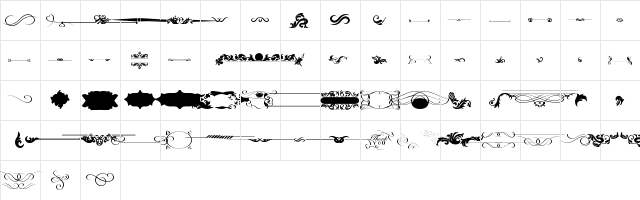
old retro labels tfb Regular
Design Context for old retro labels tfb Typeface
old retro labels tfb has the warm character of retro typography — evoking diners, record sleeves, and the golden age of print advertising.
Font Pairing: Combine old retro labels tfb with a simple slab or neutral sans — period-accurate companions reinforce the vintage feel without competing for attention.
Pro Tip: Lean into old retro labels tfb's period character by pairing it with aged paper textures, muted colour palettes, and vintage illustration styles.